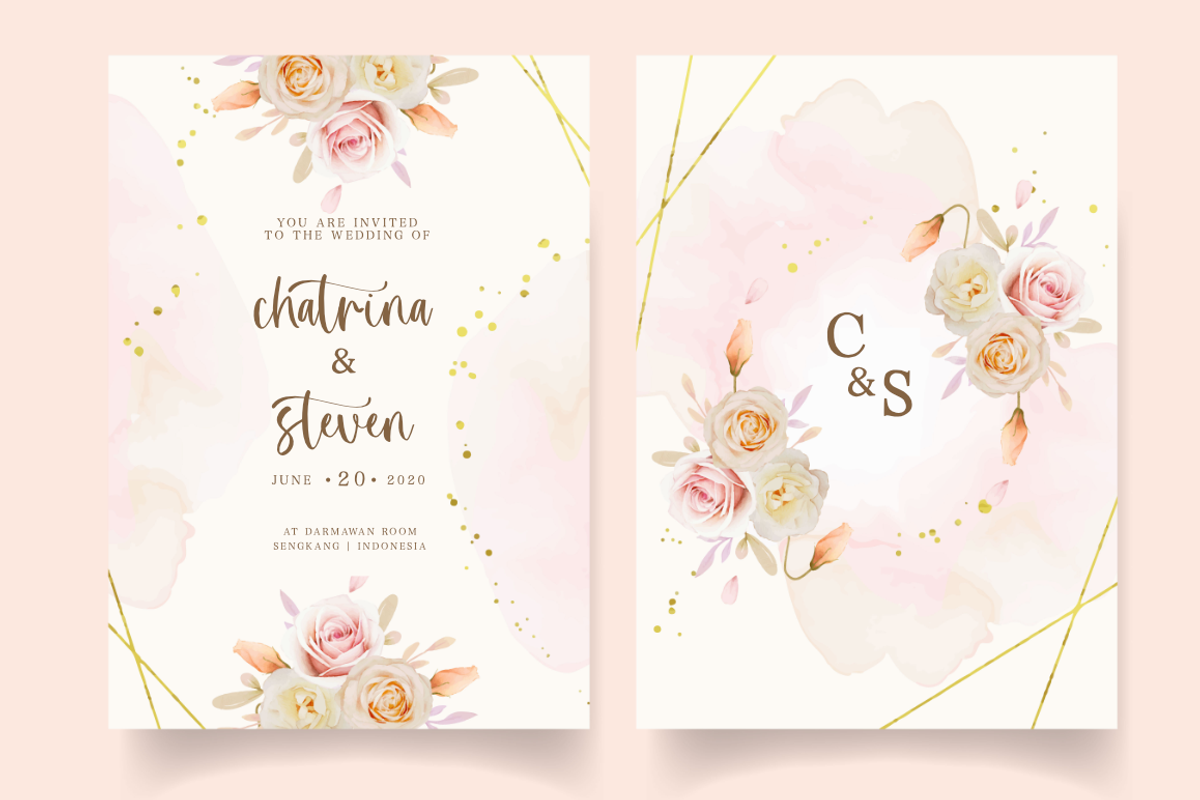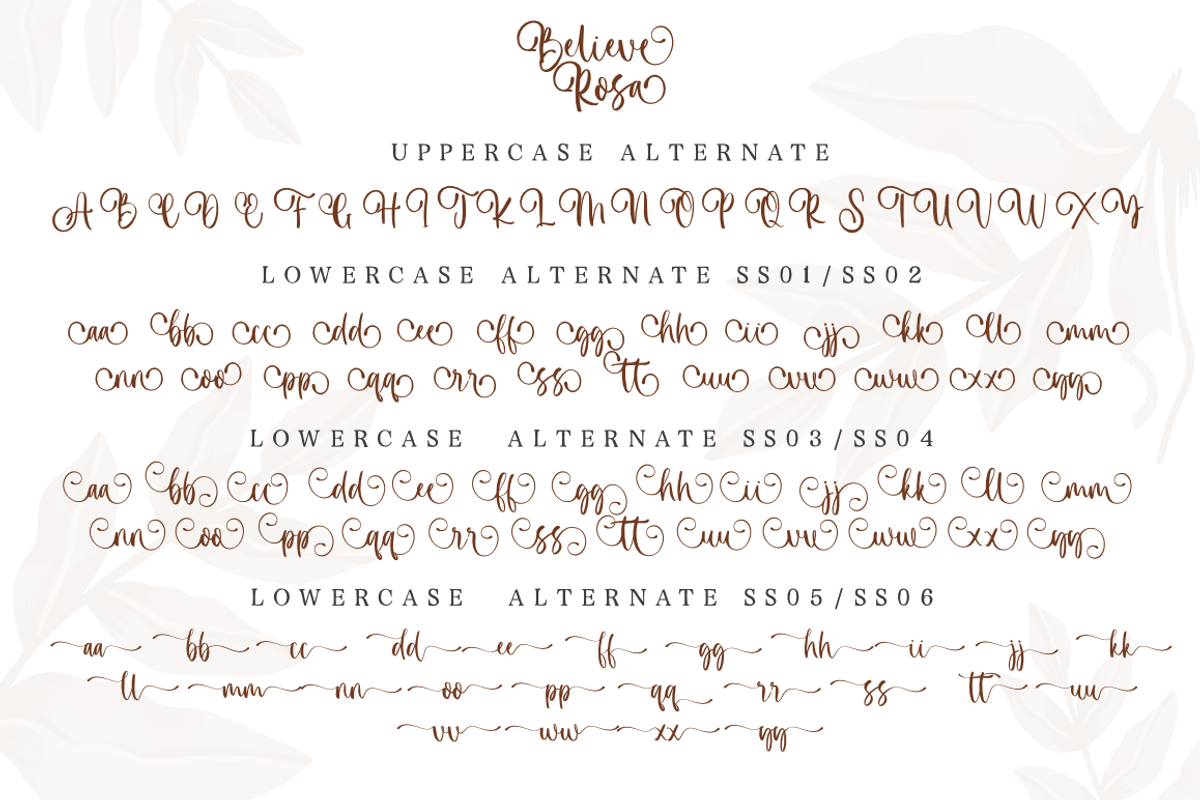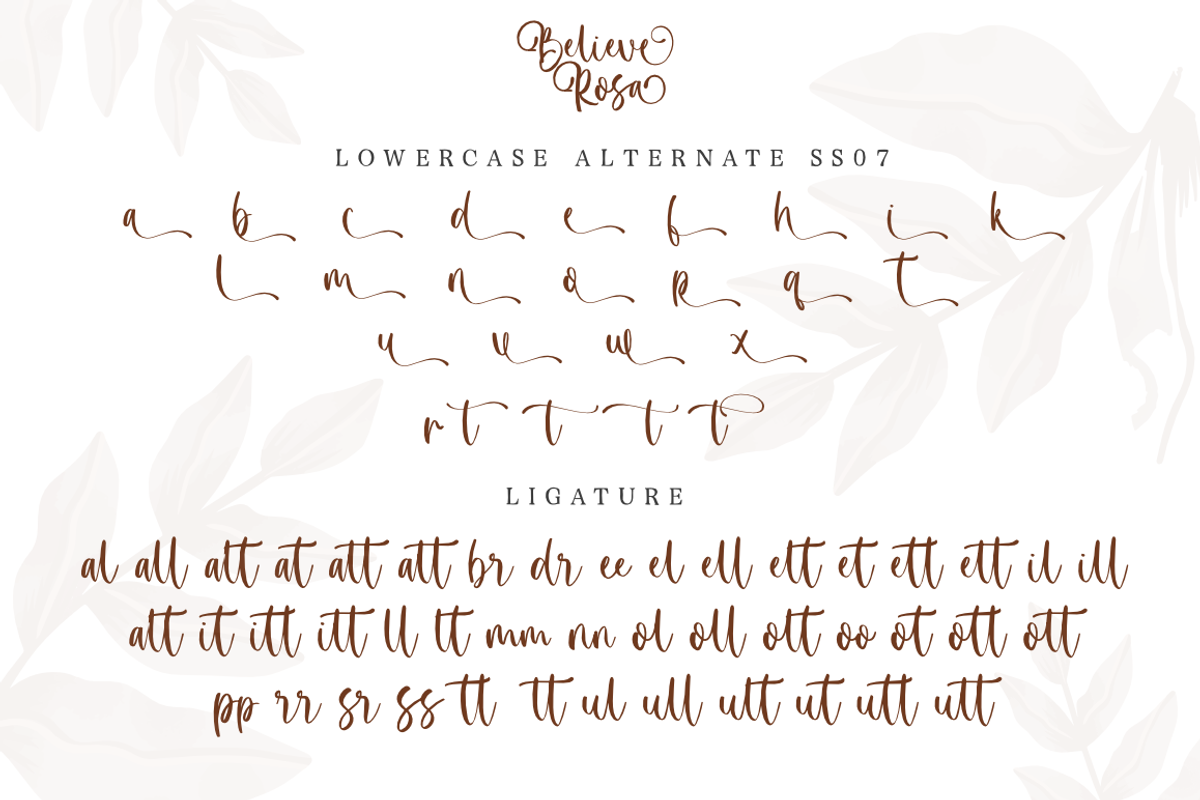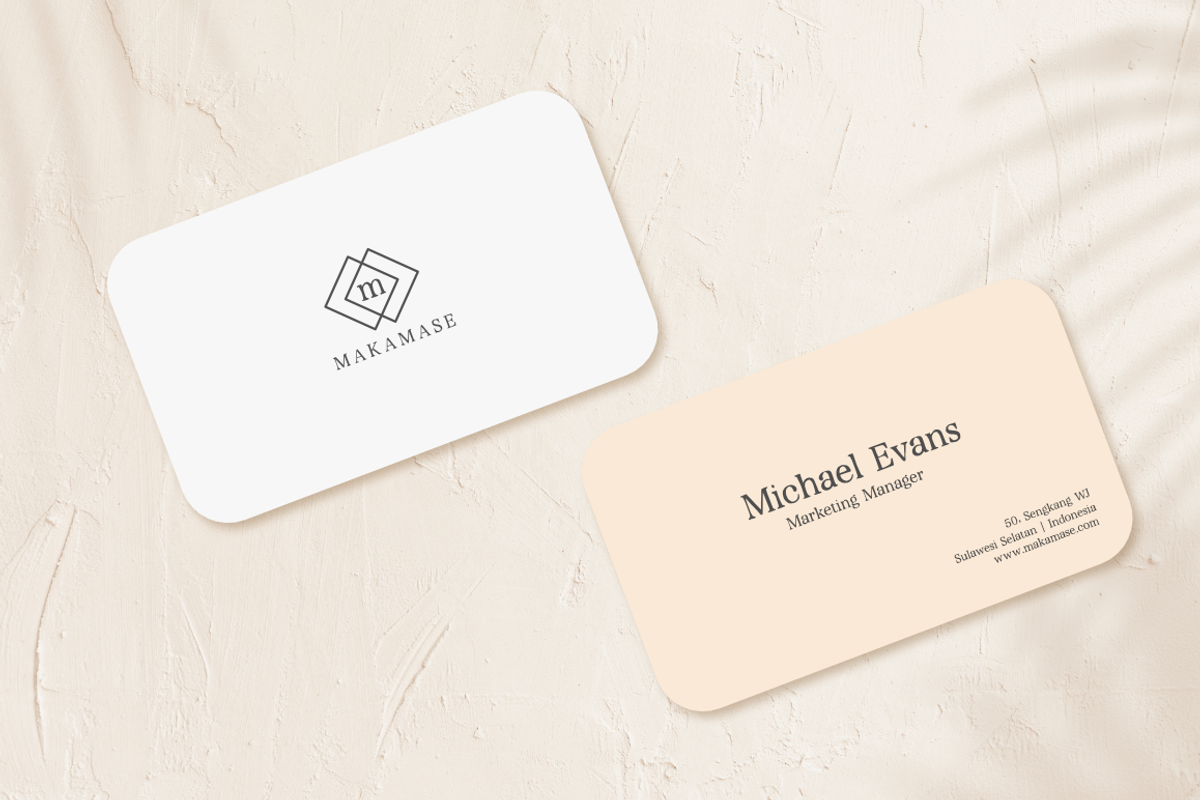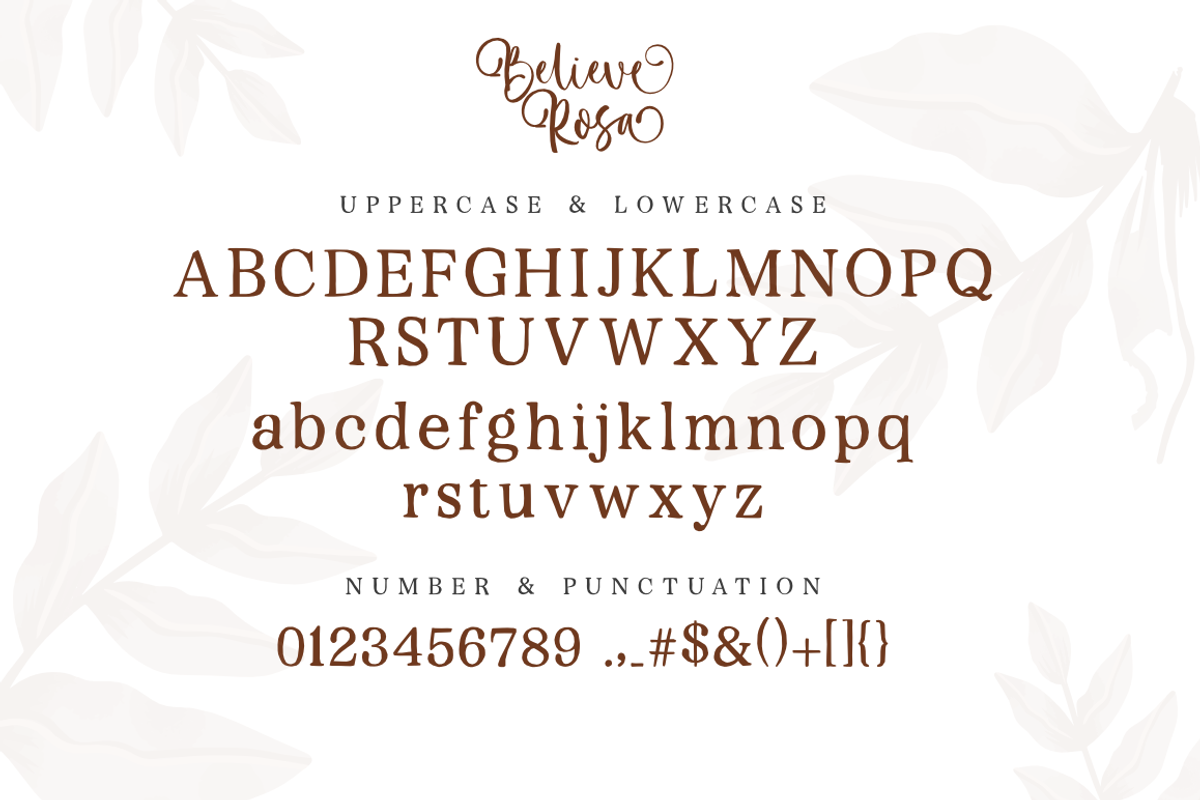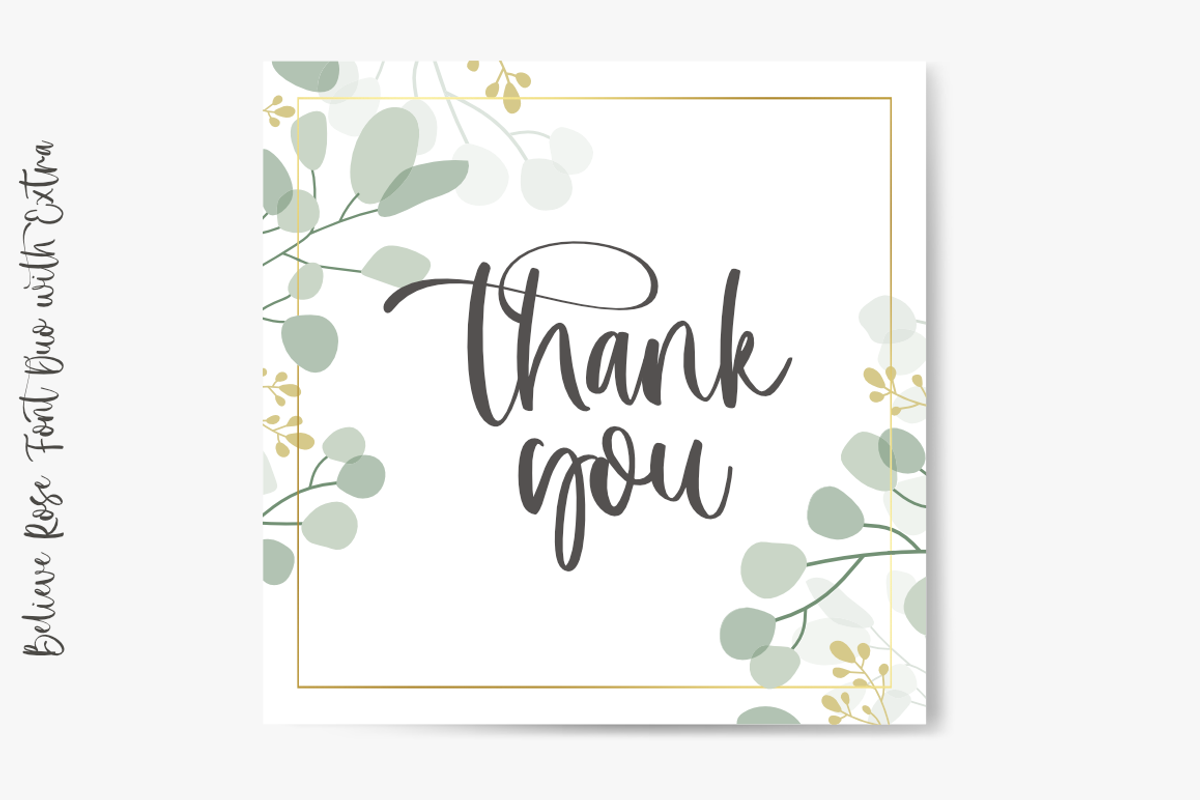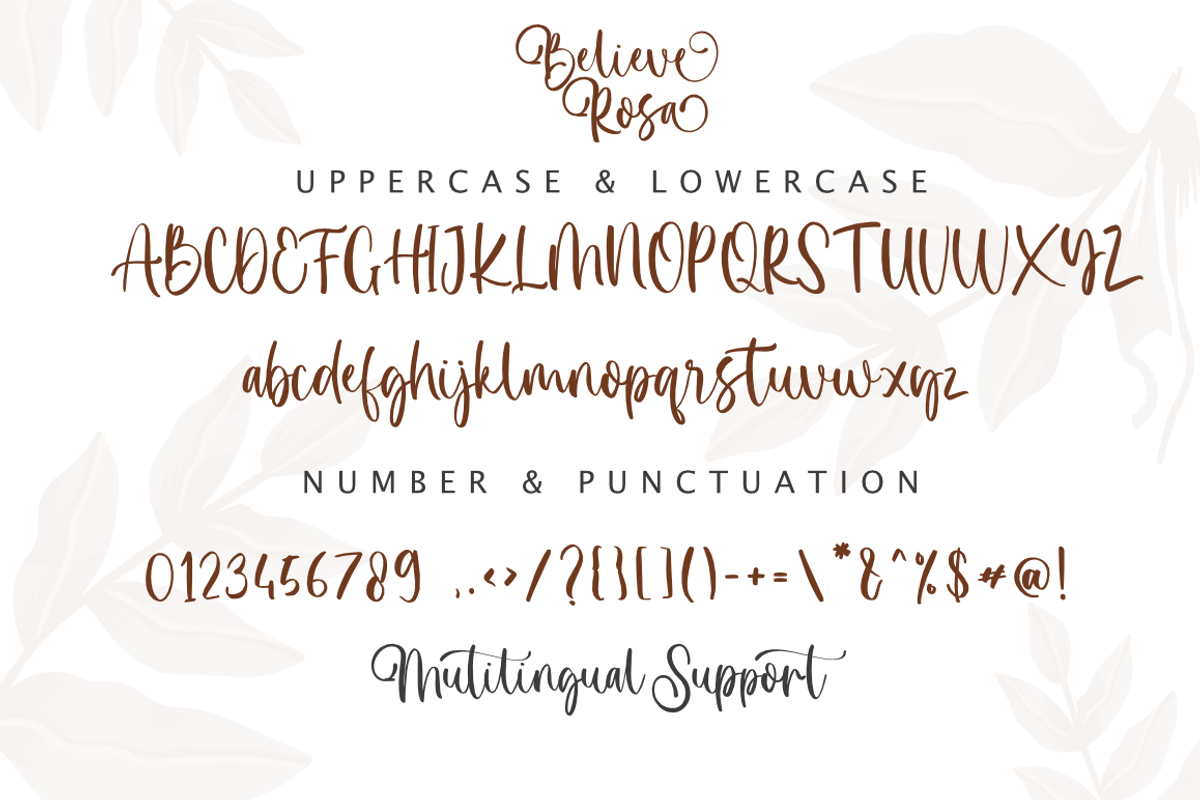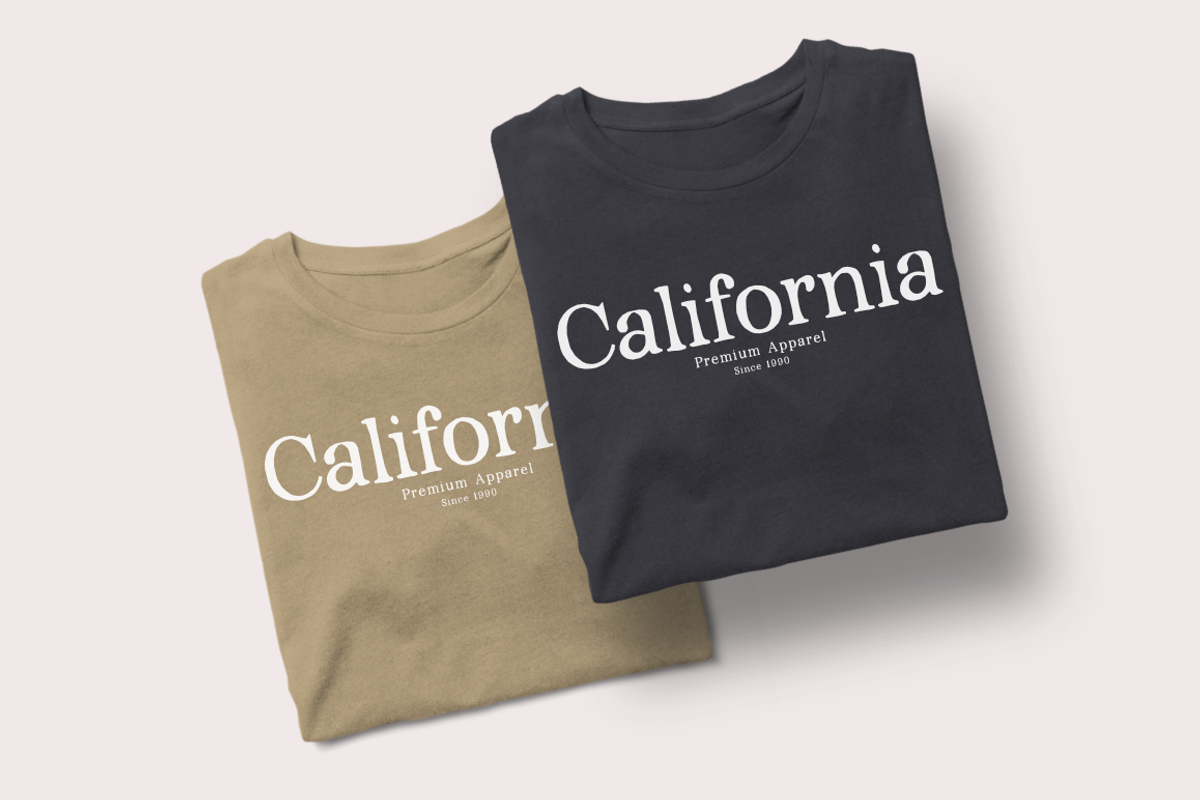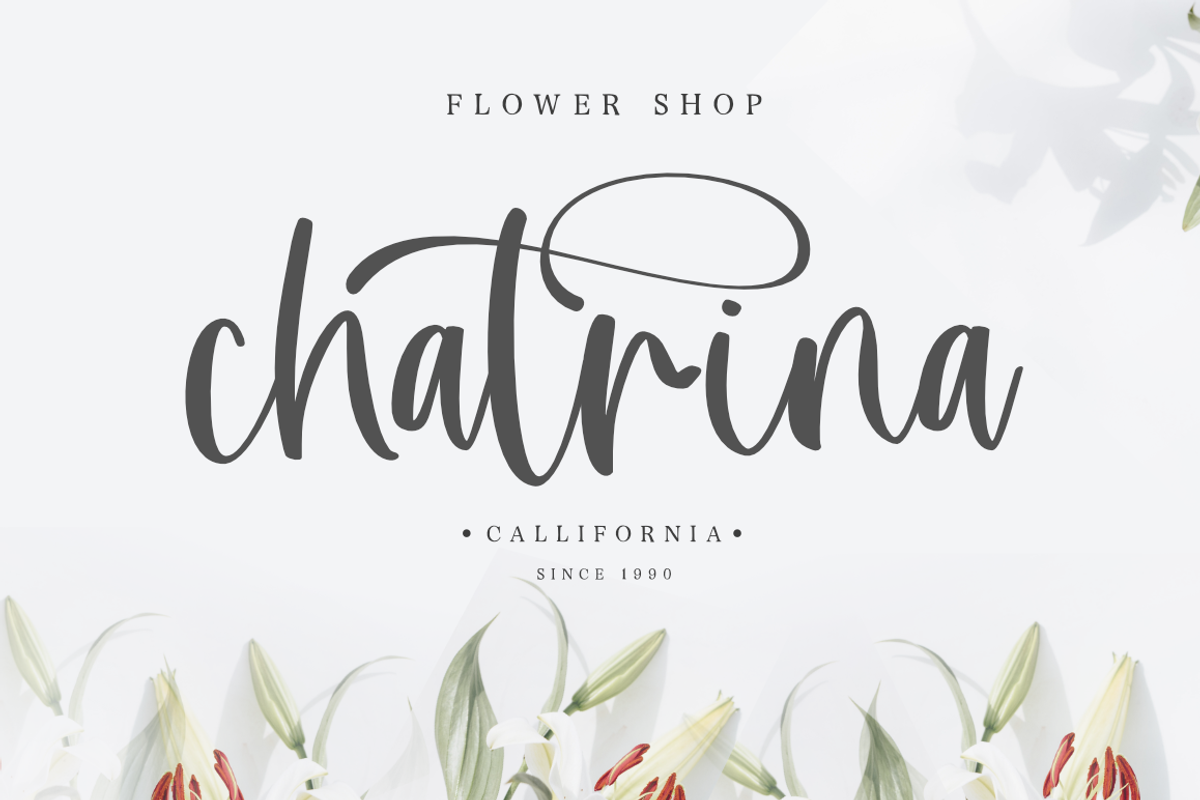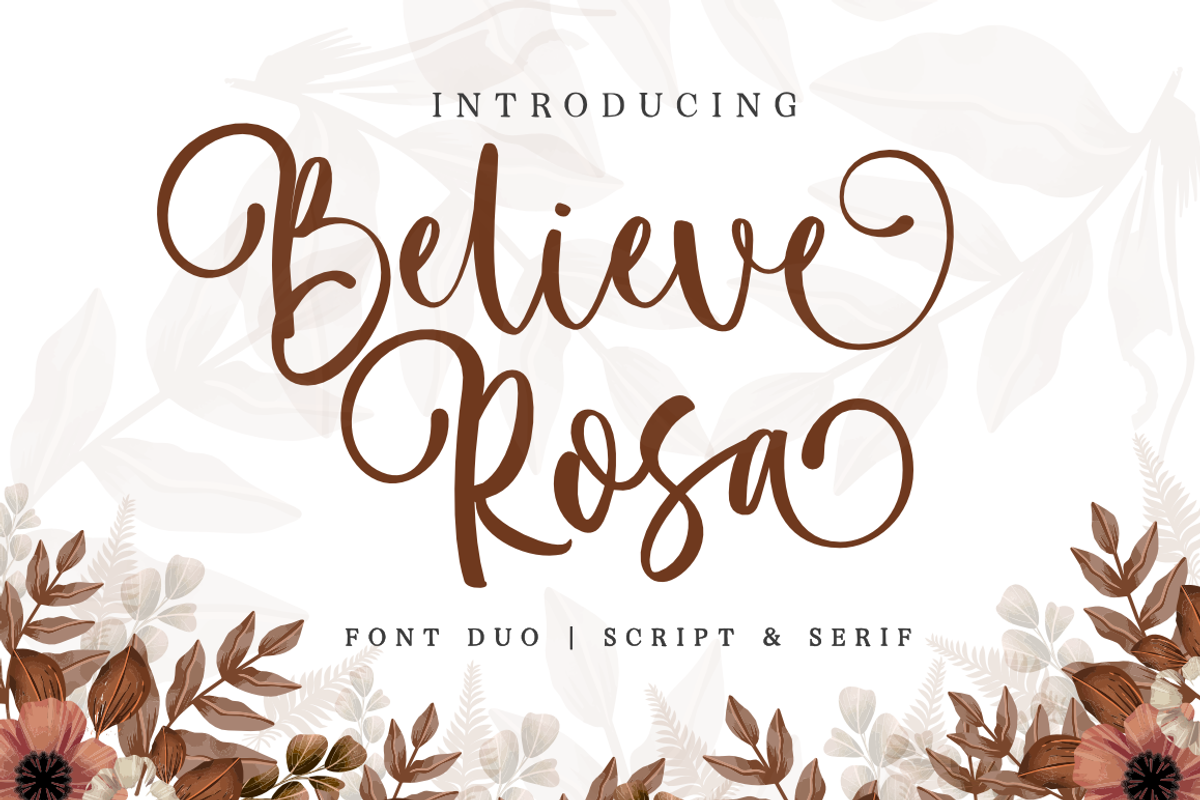
Believe Rosa - Font Duo
Believe Rosa is a handwritten font, with a cute and unique style, there are many tails that you can use to perfect your designs,
Of course, with the many tails in the uppercase and especially in the lowercase, there are so many tails in each letter that you can use, this font is also equipped with serif fonts to add a perfect impression to your design.
This font is perfect for branding, logos, weddings, magazines, crafts, silhouettes, cutting machines, cry cuts, clothes or t-shirts, and many others.